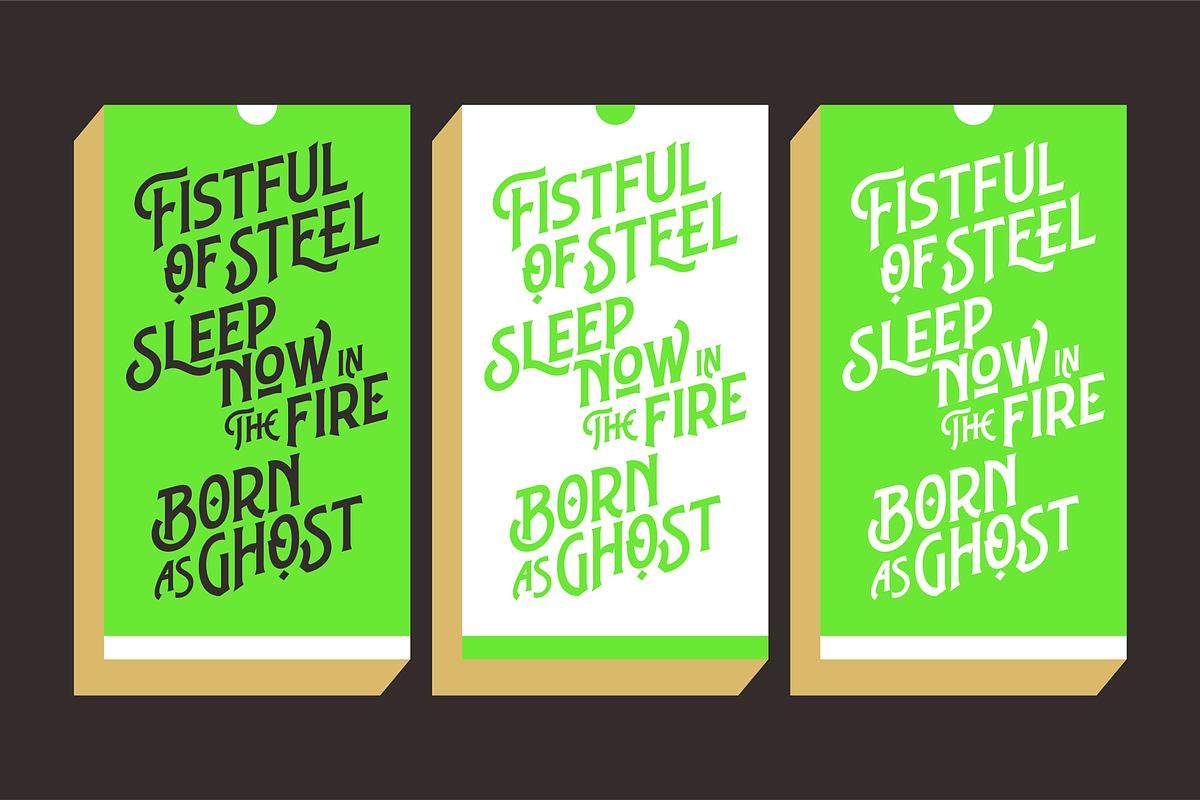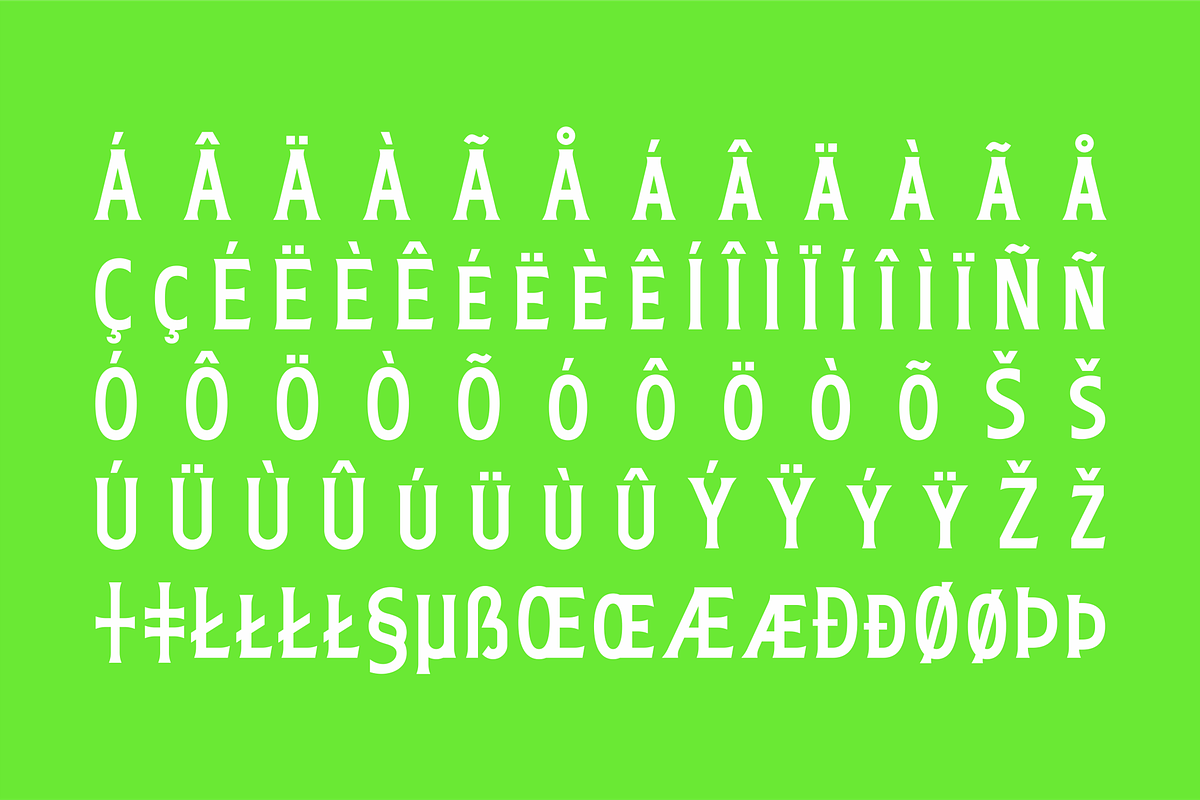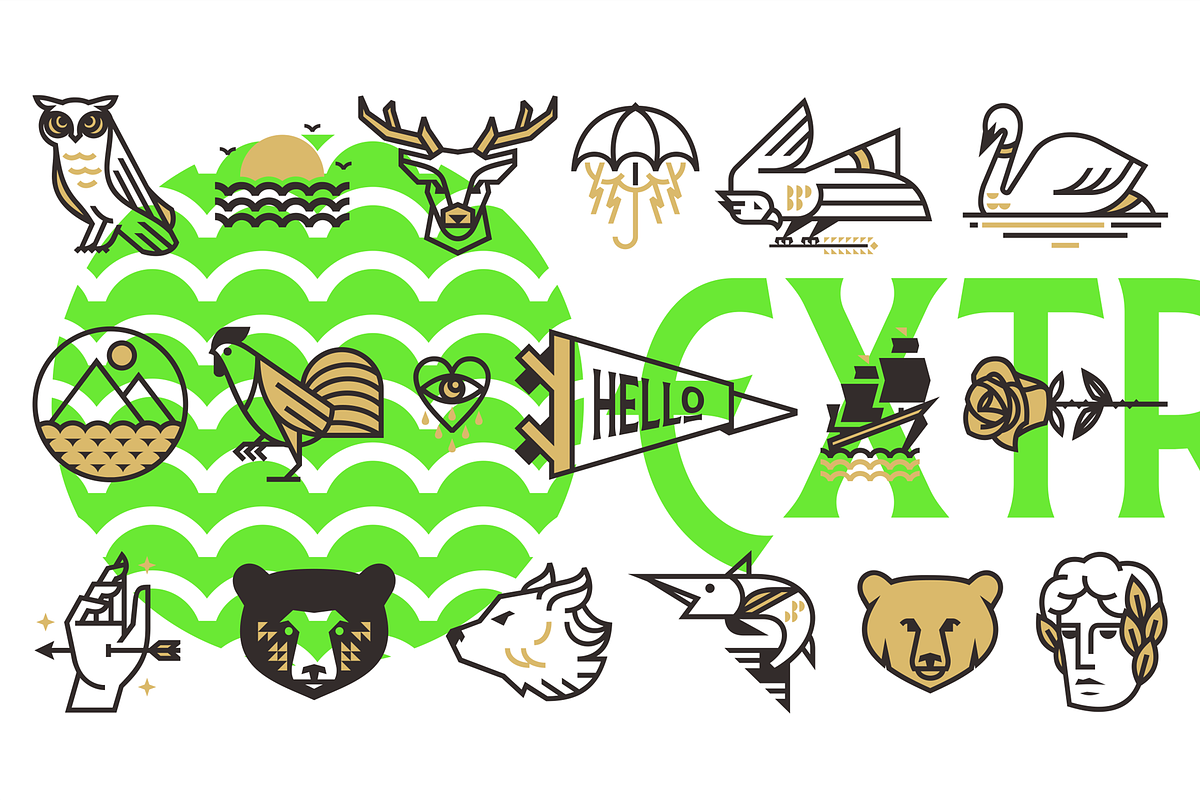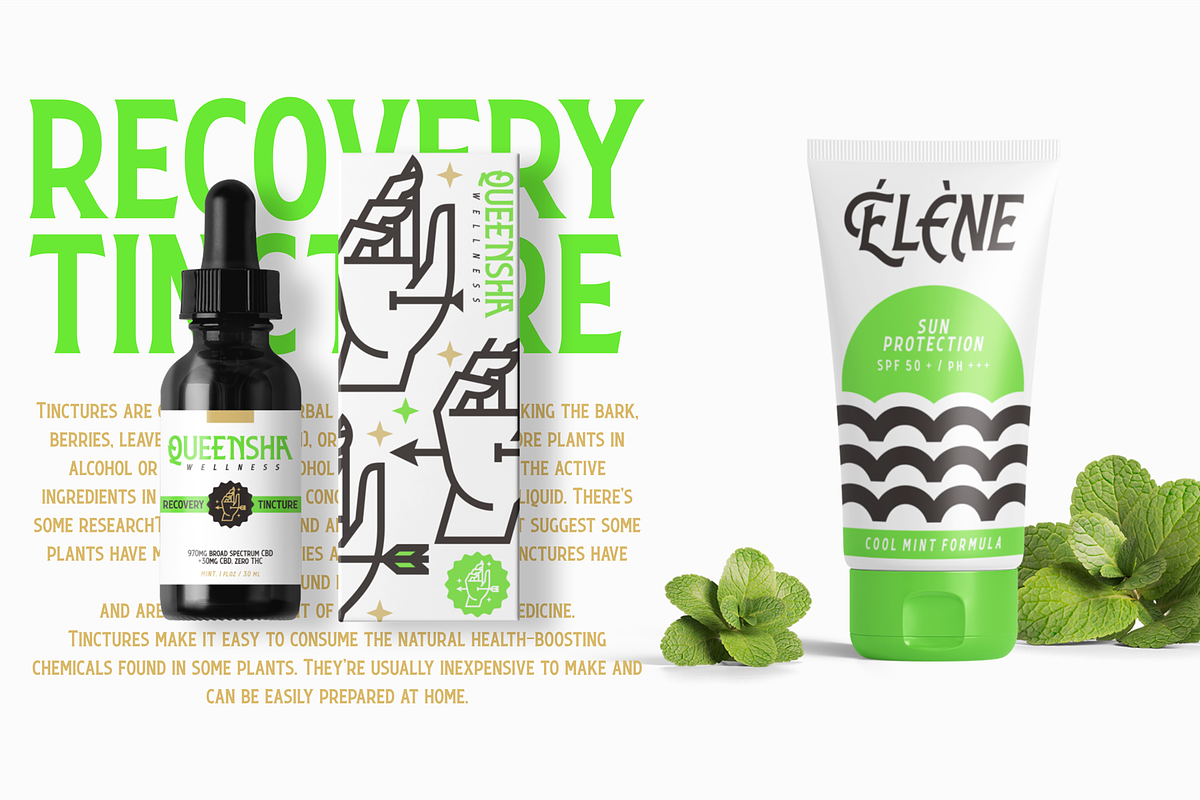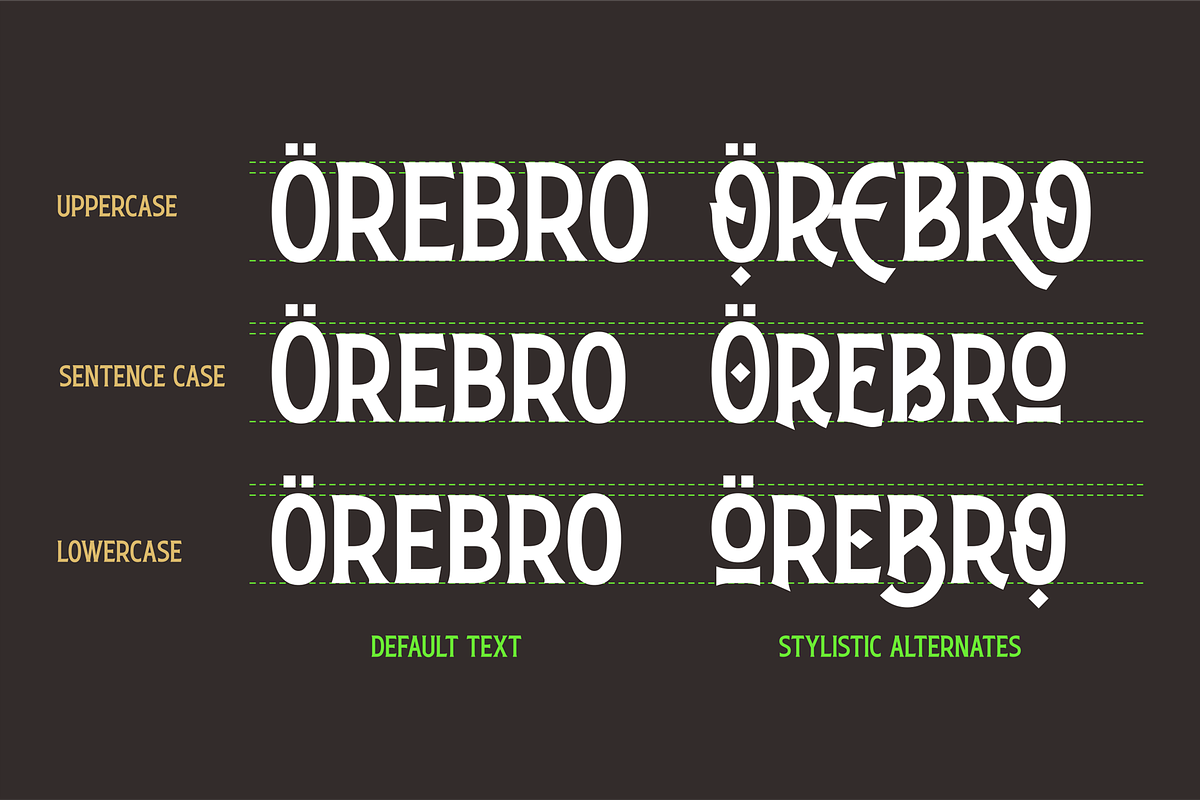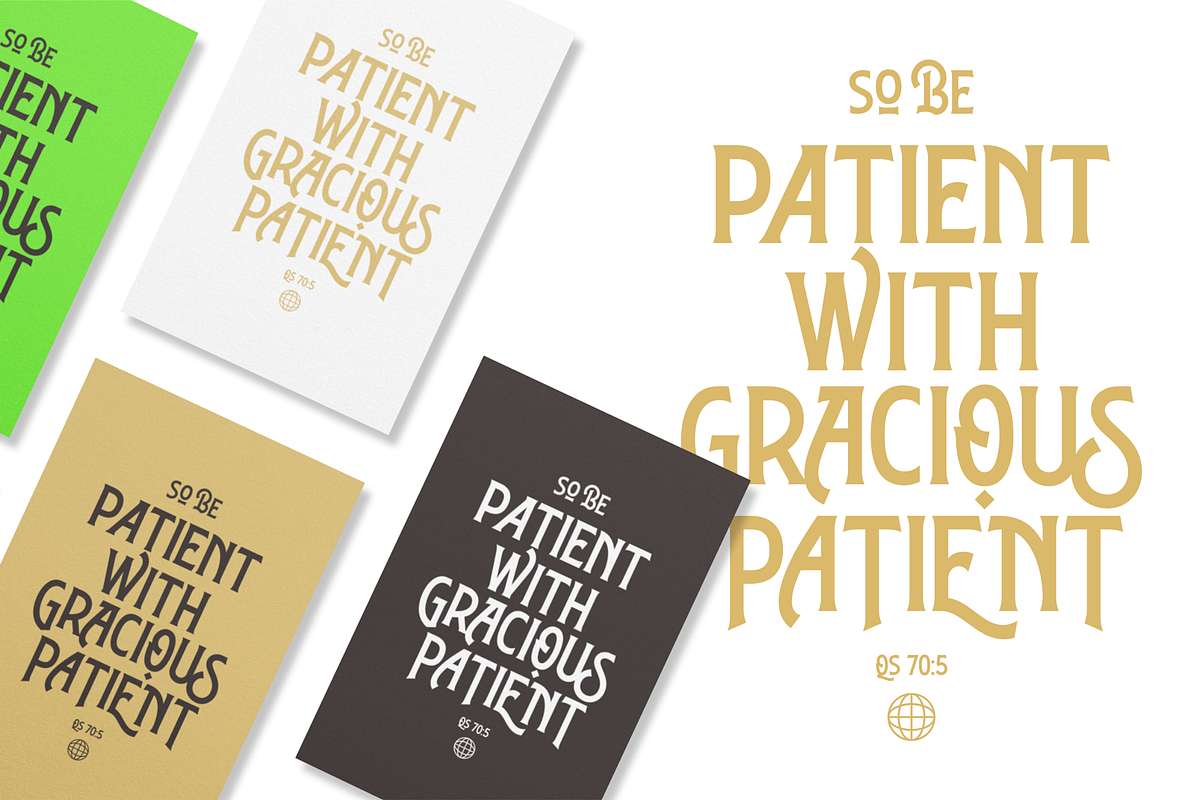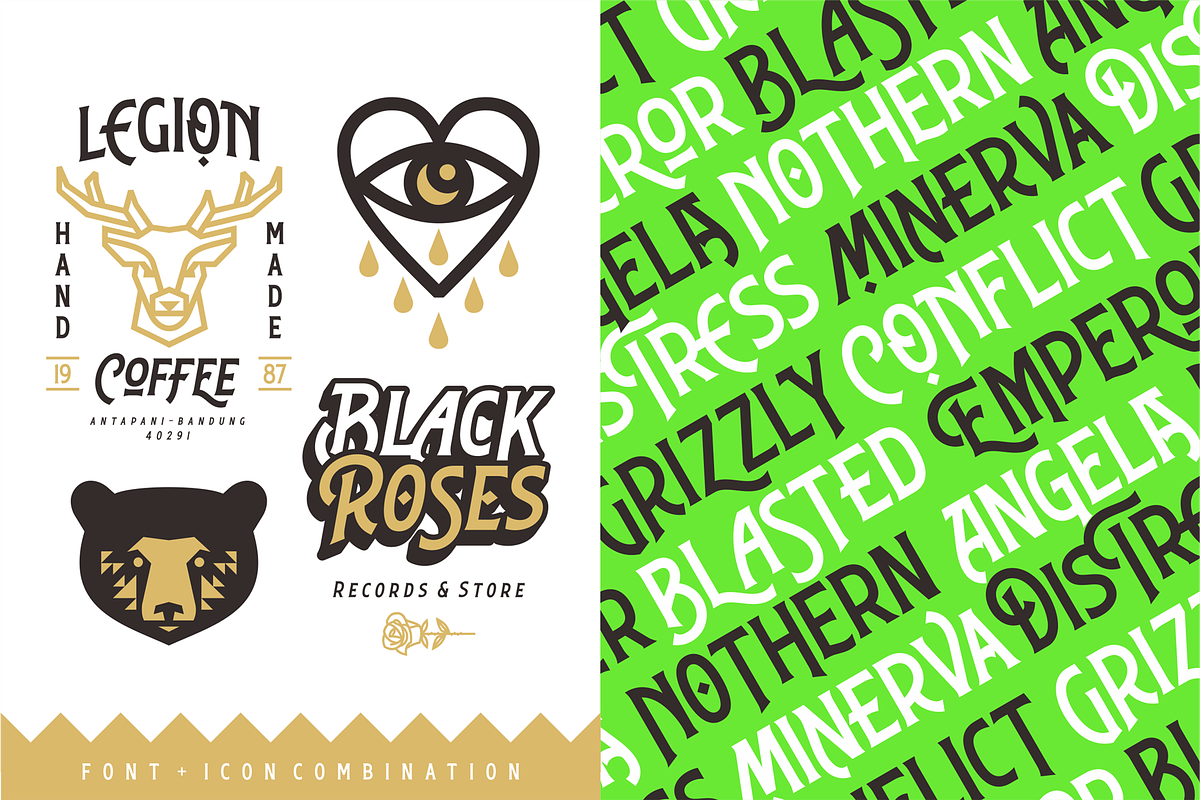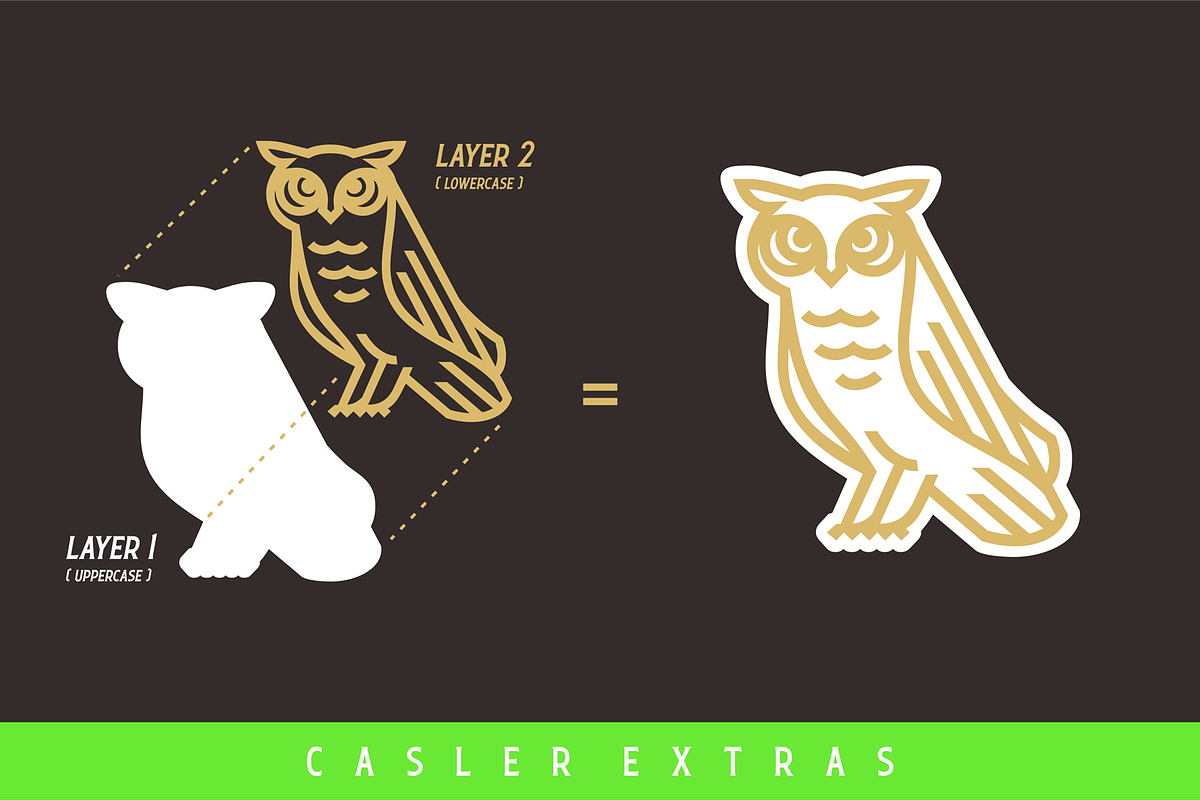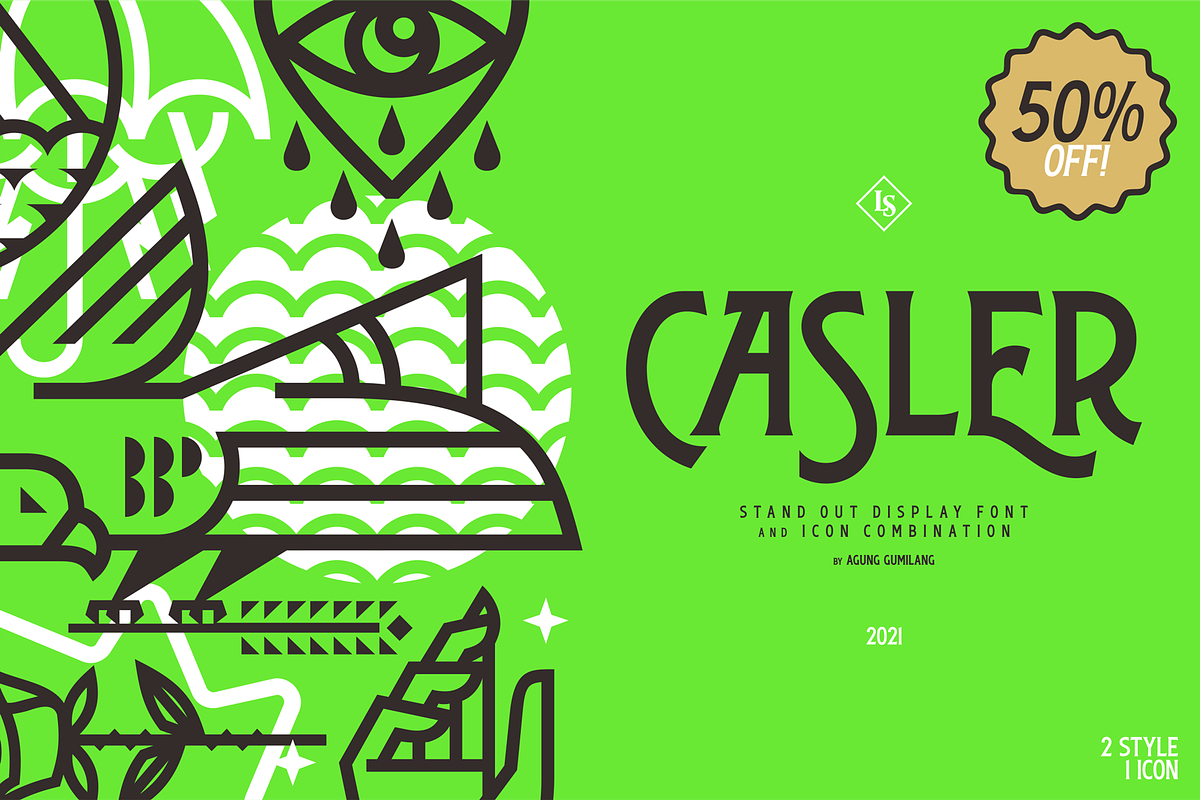
Casler font is a display font designed for any creative project that needs to be stand out. While get inspired by some vintage aphotecary labels, Casler Font wrapped as firm yet unique font display that consists over 1000 glyphs and 26 icon as extras. A terrific combo that gives experimentally mood in classic and modern style. Casler Font is a best thought for any advertisements usage, logos, headlines or headings, book covers and many more. A must have display font collection!